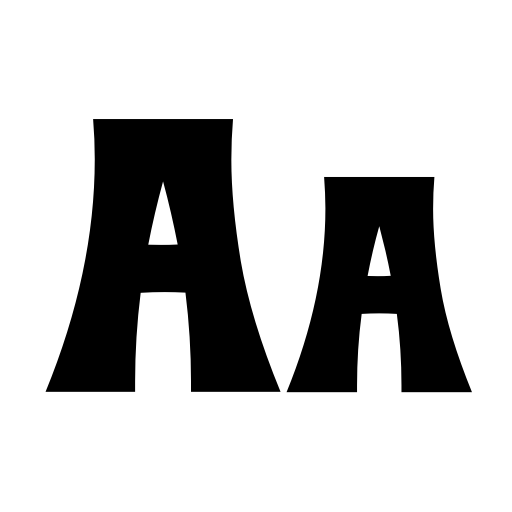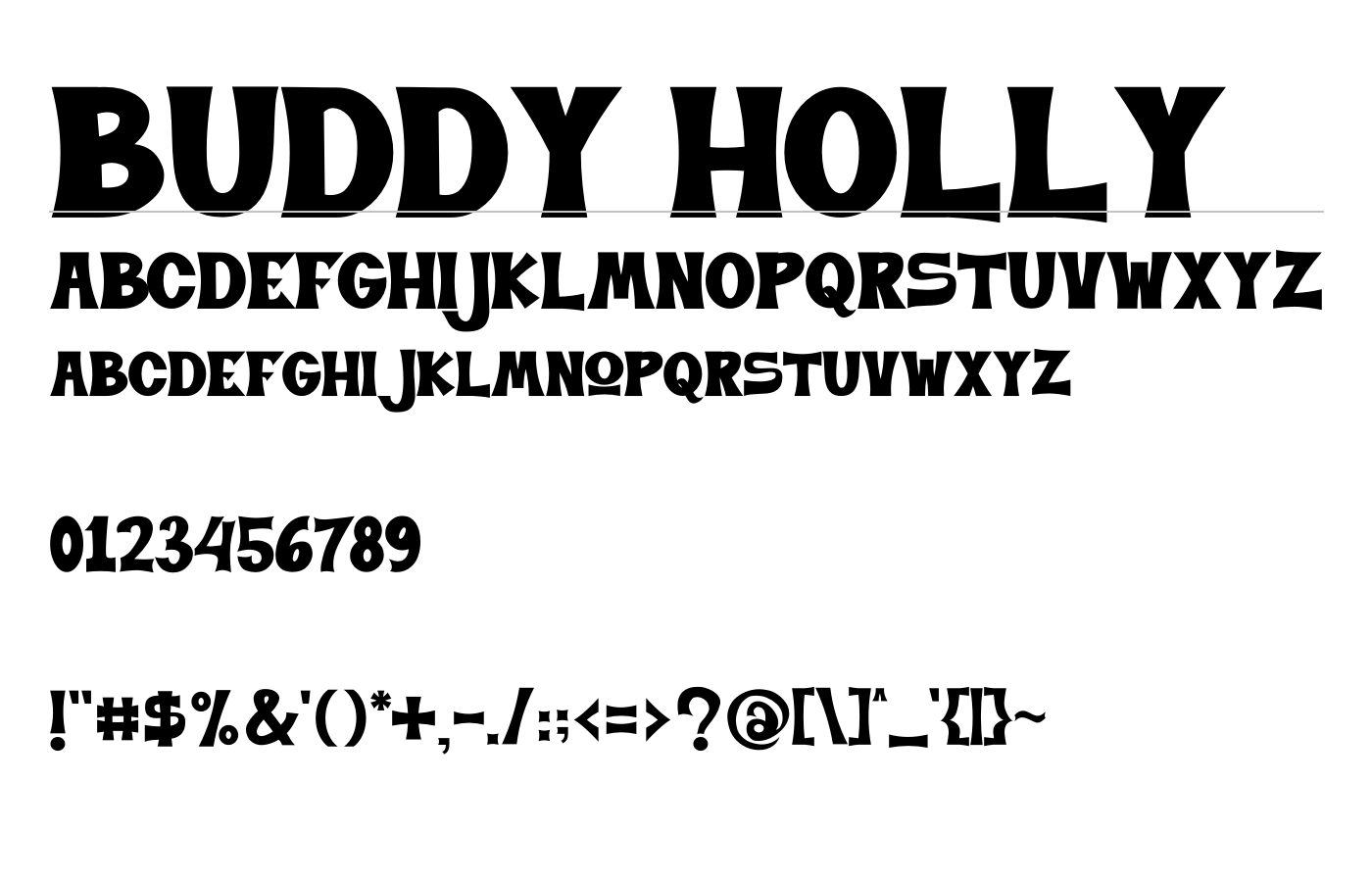
Buddy Holly is a bold, playful sans serif font characterized by its chunky, sharply angled letterforms and energetic, irregular shapes. Its wide, heavy strokes and quirky details create a fun, retro vibe that works well for attention-grabbing headlines, posters, and branding with a lively or nostalgic tone. This font’s unique style adds personality and a sense of informal charm, making it ideal for creative projects seeking a memorable, upbeat feel.
BUDDY HOLLY Font
About BUDDY HOLLY Font